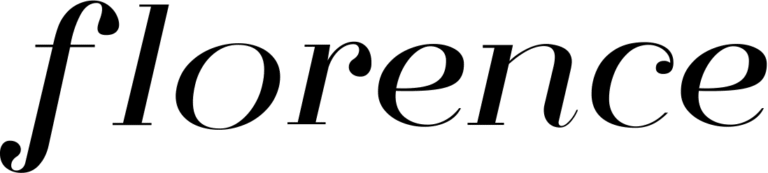
Mademoiselle Camille Font
As an elegant font perfect for your most first-class projects, Mademoiselle Camille is comprised of slightly inclined letterforms with curvy swashes. Even though this delicate calligraphy font is a great choice for injec…
Designed byMaelle.K Thomas Boucherie
As an elegant font perfect for your most first-class projects, Mademoiselle Camille is comprised of slightly inclined letterforms with curvy swashes. Even though this delicate calligraphy font is a great choice for injecting modernity into your typography, it might not be very easy to read if not used in the proper size.
What designs do you think Mademoiselle Camille fits better? Logotypes, signs, greeting cards, or digital lettering? Want to know my opinion? Surely all of them, and even more!